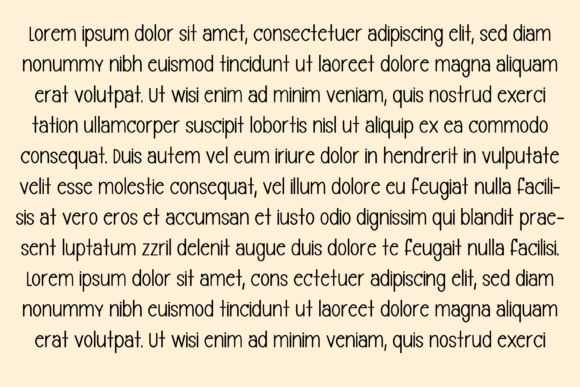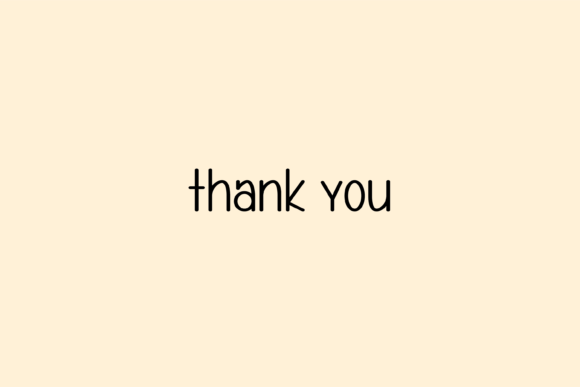
The Flamingo Font: A Simple yet Whimsical Design Game-Changer
I’ll never forget the time I was working on a wedding invitation project, and my client asked for a font that was “fun, yet elegant.” I scoured the internet, tried out dozens of fonts, but nothing seemed quite right. That was until I stumbled upon the Flamingo Font. This simple and friendly handwritten font has been a game-changer for my designs, and I’m excited to share its charm with you.
- ✨ The Flamingo Font is incredibly versatile, making it perfect for a wide range of design projects, from logos and wedding invitations to quotes and advertisements.
- ✅ Its whimsical and quirky personality adds a touch of warmth and friendliness to any design.
- 💫 The font’s simplicity ensures it remains legible, even at smaller sizes.
While the Flamingo Font is an excellent choice for many projects, there are a few things to keep in mind:
- 🤔 Some users may find the font’s quirks and irregularities too pronounced for very formal or traditional designs.
- ⚠️ As with any handwritten font, it may not be the best choice for very long blocks of text, as readability can suffer.
- Experiment with the font’s OpenType features, such as stylistic alternates, to add visual interest to your design.
- Explore the font’s glyphs and OpenType features by accessing the “Glyphs” panel or using keyboard shortcuts.
The Designer Inspiration Behind Flamingo Font
The Flamingo Font was designed with the intention of creating a friendly, approachable typeface that would bring joy to designs. Its creator drew inspiration from classic handwritten fonts, infusing them with a modern, playful twist.
Q: What makes Flamingo Font so special?
A: The Flamingo Font’s unique blend of simplicity and whimsy makes it stand out from other fonts.
Q: Is Flamingo Font suitable for body text?
A: While it’s possible to use Flamingo Font for body text, it’s recommended for shorter passages or headings due to its handwritten nature.